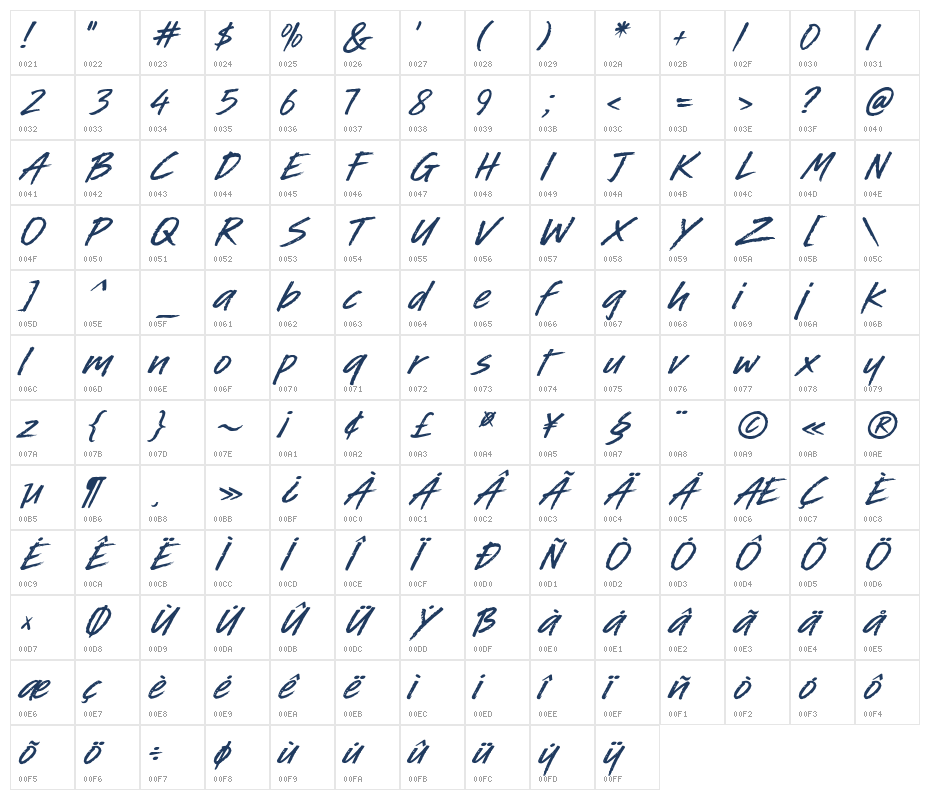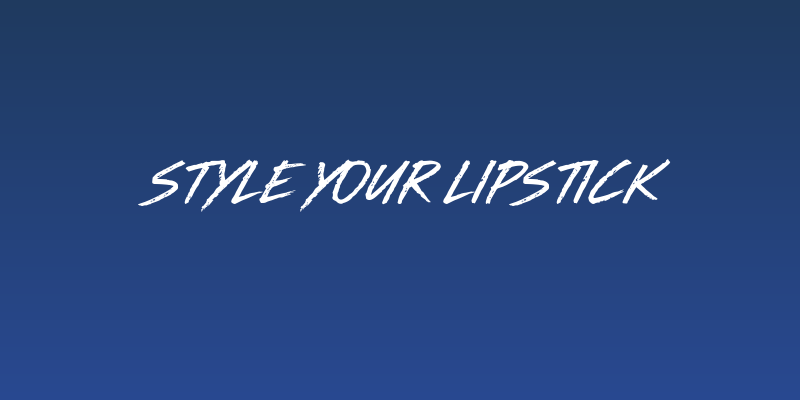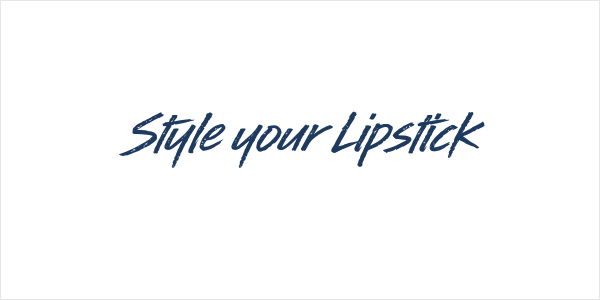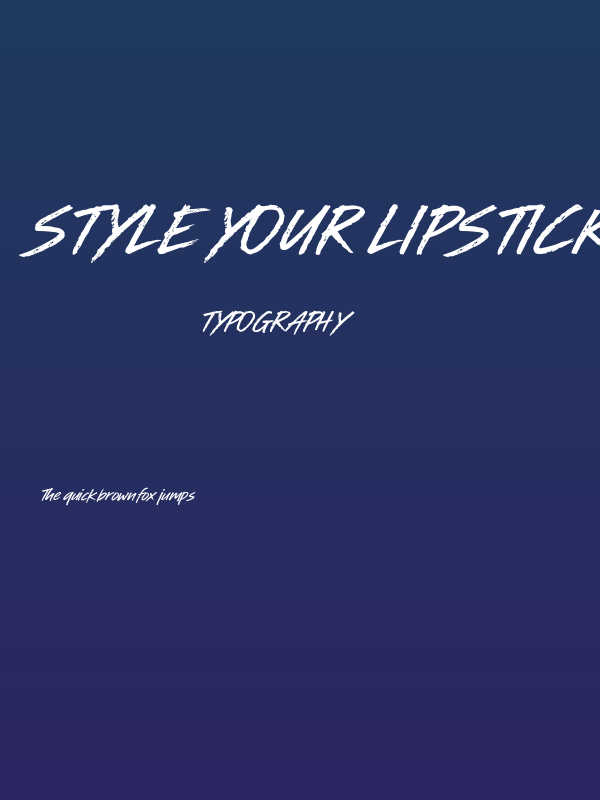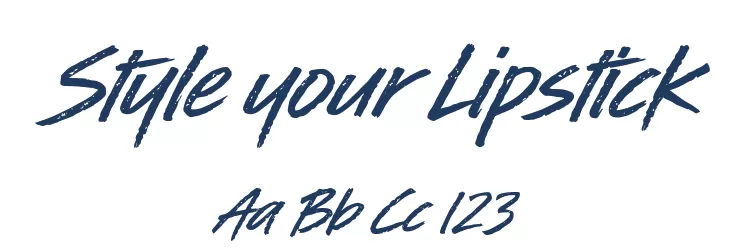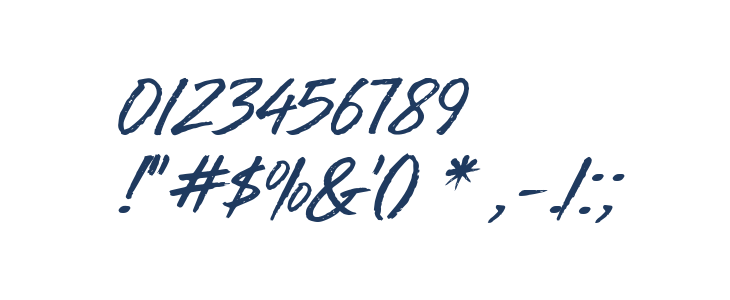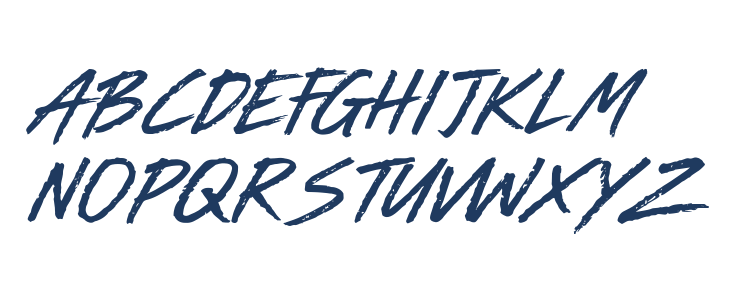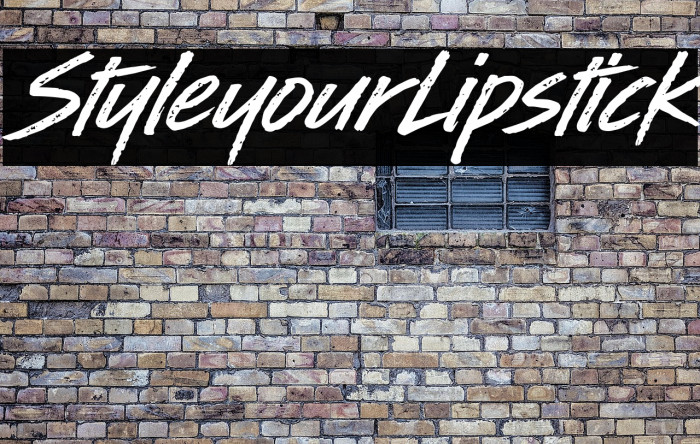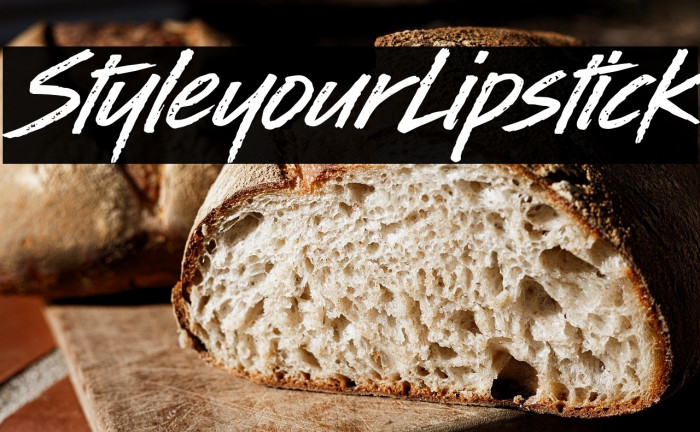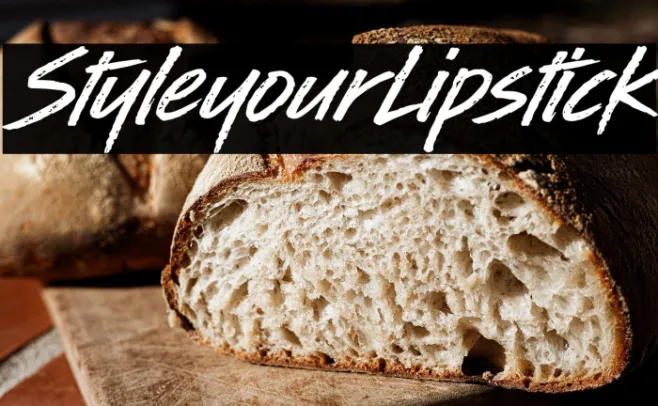
Style your Lipstick Font
Style your Lipstick Description
A casual, handwritten script font with a brush stroke style, featuring both uppercase and lowercase letters, numbers, and common punctuation.
| Overall Style | Casual, Artistic, Handwritten |